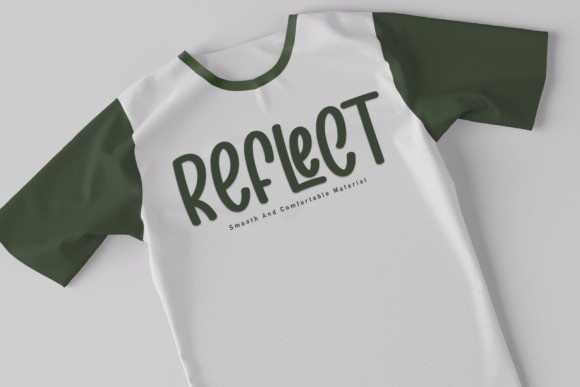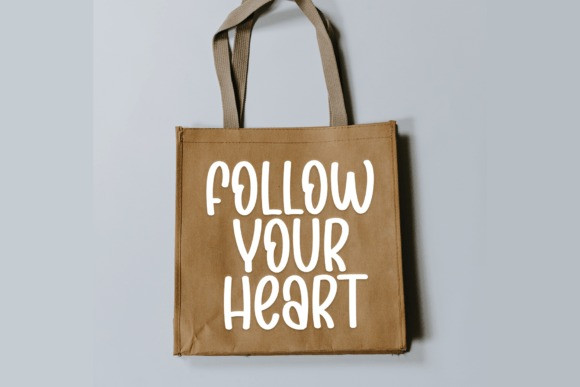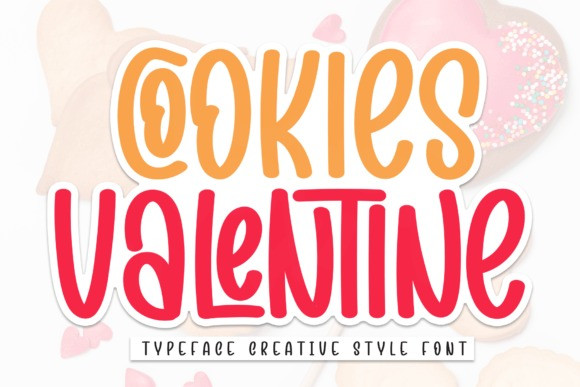
Cookies Valentine Font
Cookies Valentine Font is a fun handwritten font masterfully crafted to become a true favorite. Contemporary and fresh, it is perfect for any design you wish to create. Add it to your creative projects and make them outstanding!